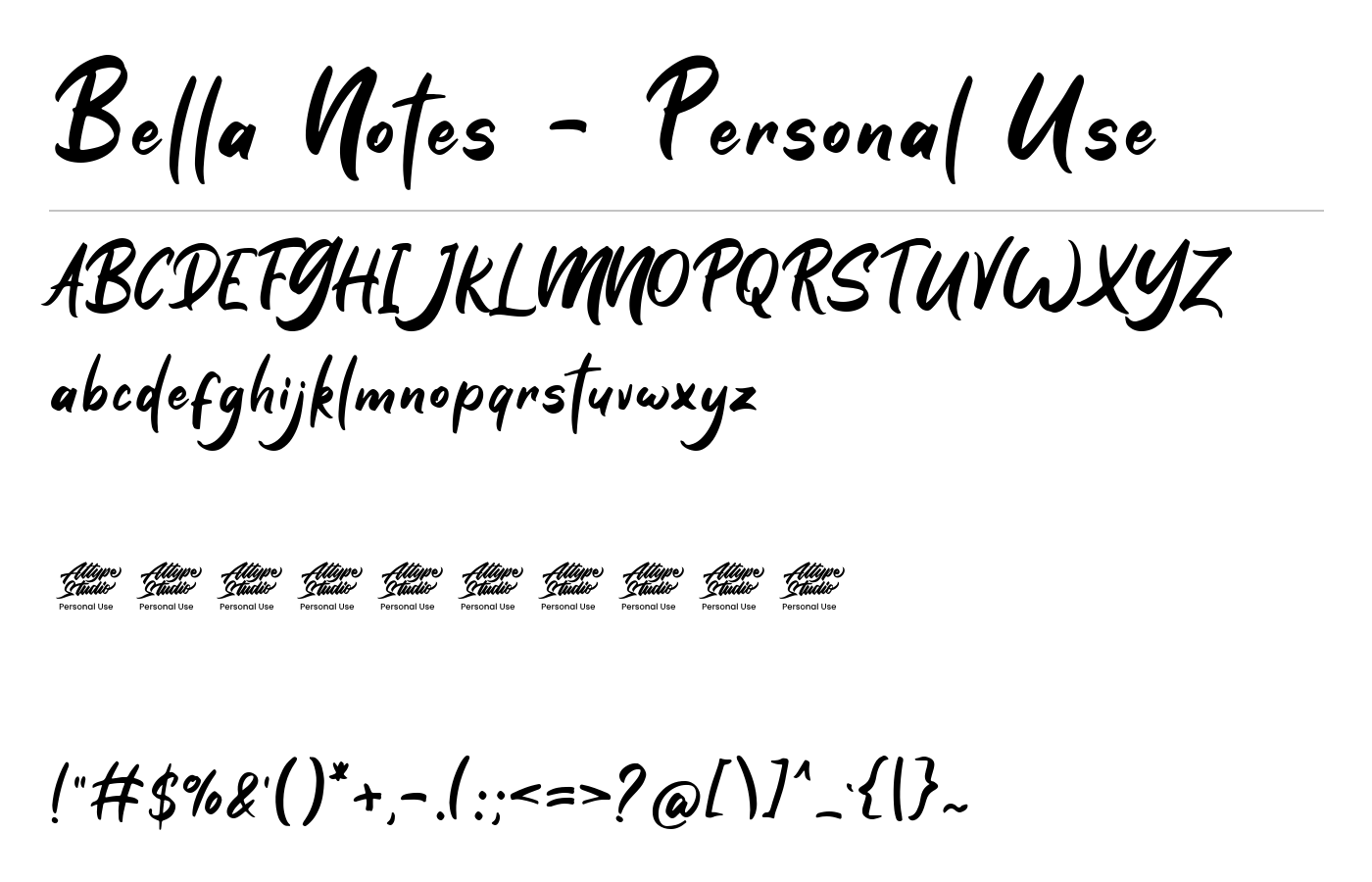
Bella Notes is a lively and expressive handwritten script font with medium weight and a natural, flowing style. Its tall x-height and smooth, brush-like strokes give it a personal, friendly feel that works beautifully for creative branding, casual invitations, and artistic headlines. This font adds a warm, approachable touch with its unique letterforms and slightly irregular shapes, making it perfect for designs needing a charming, handcrafted vibe.
Bella Notes - Personal Use Font
About Bella Notes - Personal Use Font